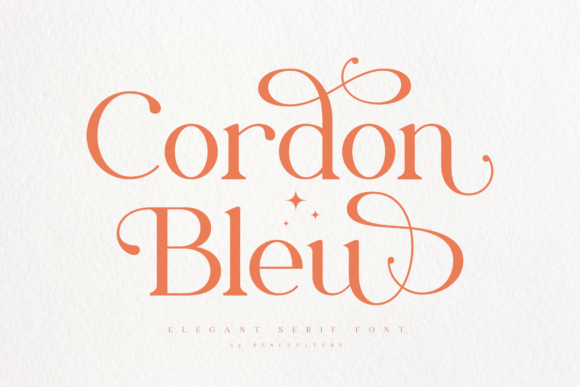
Prepare your eyes for a visual feast as you unveil Cordon Bleu, a modern and elegant serif font that exudes sophistication and class. This exquisite font, brought to life by the creative minds at Pen Culture, is more than just a collection of letters; it's an artistic masterpiece waiting to adorn your digital creations.
Step into a world of unmatched elegance where each character is meticulously crafted to exude grace and charm. Cordon Bleu's timeless beauty captures the essence of modern typography, with its captivating shape and unique characters that dance across your screen like a symphony of aesthetics. Whether you're a seasoned designer or just starting your creative journey, Cordon Bleu is the perfect font to elevate your projects to new heights of visual splendor.
Experience the transformative power of Cordon Bleu as it breathes life into your designs. Its versatility knows no bounds, making it the perfect choice for branding, logo designs, magazines, posters, and even your Instagram feed. With Cordon Bleu, your words will transcend the ordinary and become captivating works of art, leaving an unforgettable impression on your audience.
Crafted with the utmost attention to detail, Cordon Bleu is designed to make your creative process seamless and enjoyable. It's PUA encoded, allowing you to effortlessly access all the glyphs and swashes with ease. Unleash your creativity and explore the limitless possibilities that await you with this versatile font.
Indulge in the allure of Cordon Bleu and witness the transformation of your designs. Its elegance will captivate your audience, leaving them spellbound by the visual masterpiece you've created. Don't settle for ordinary fonts; embrace the extraordinary with Cordon Bleu and let your creations shine brighter than ever before.